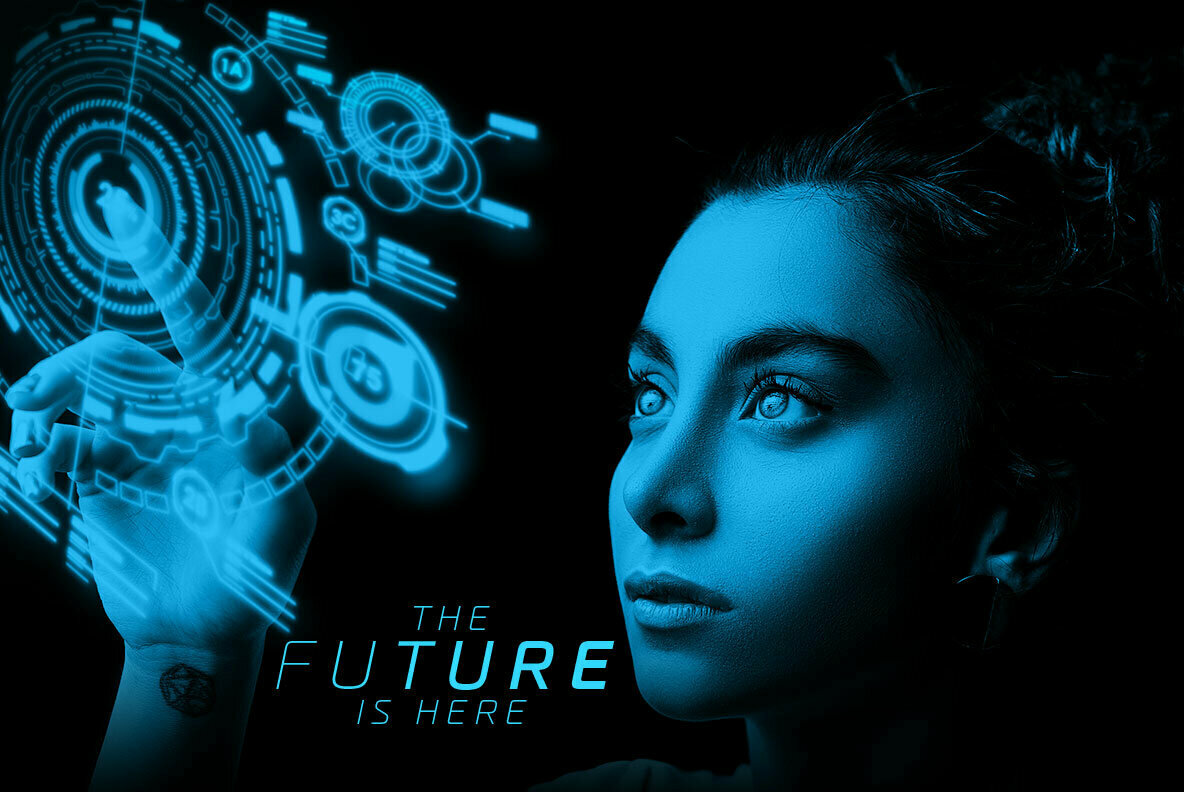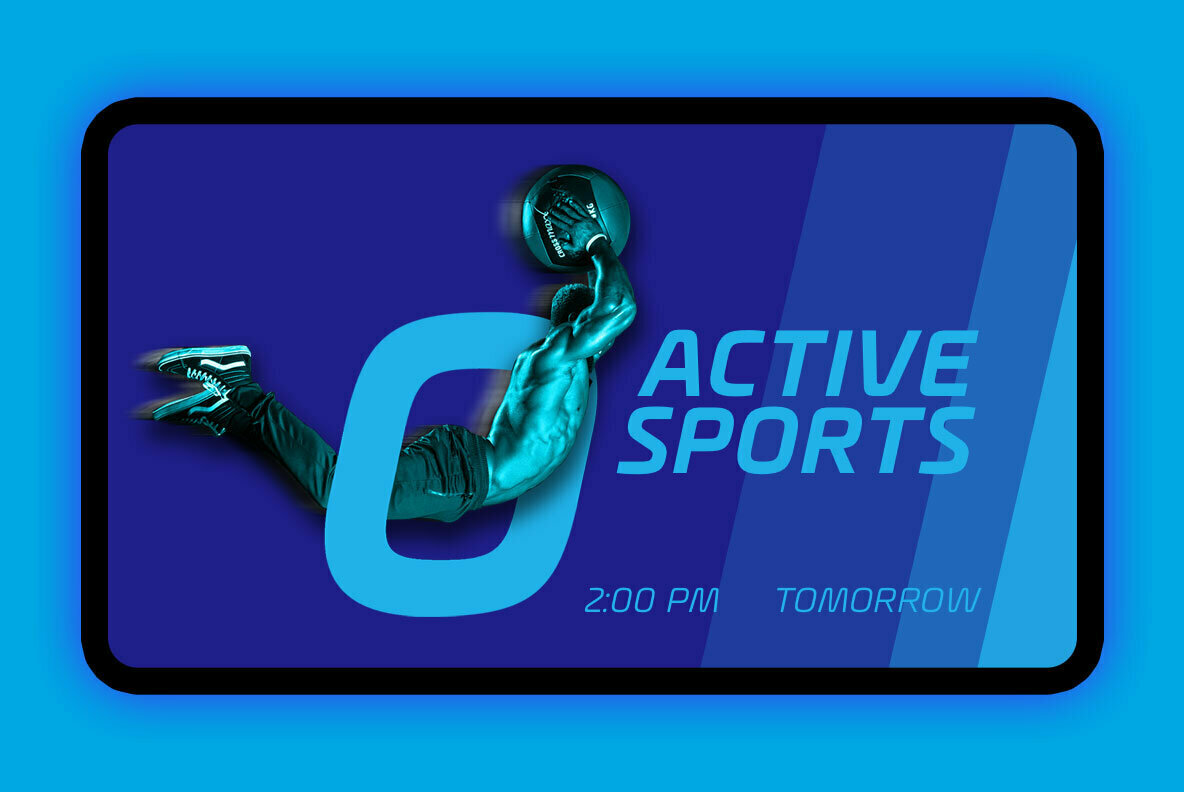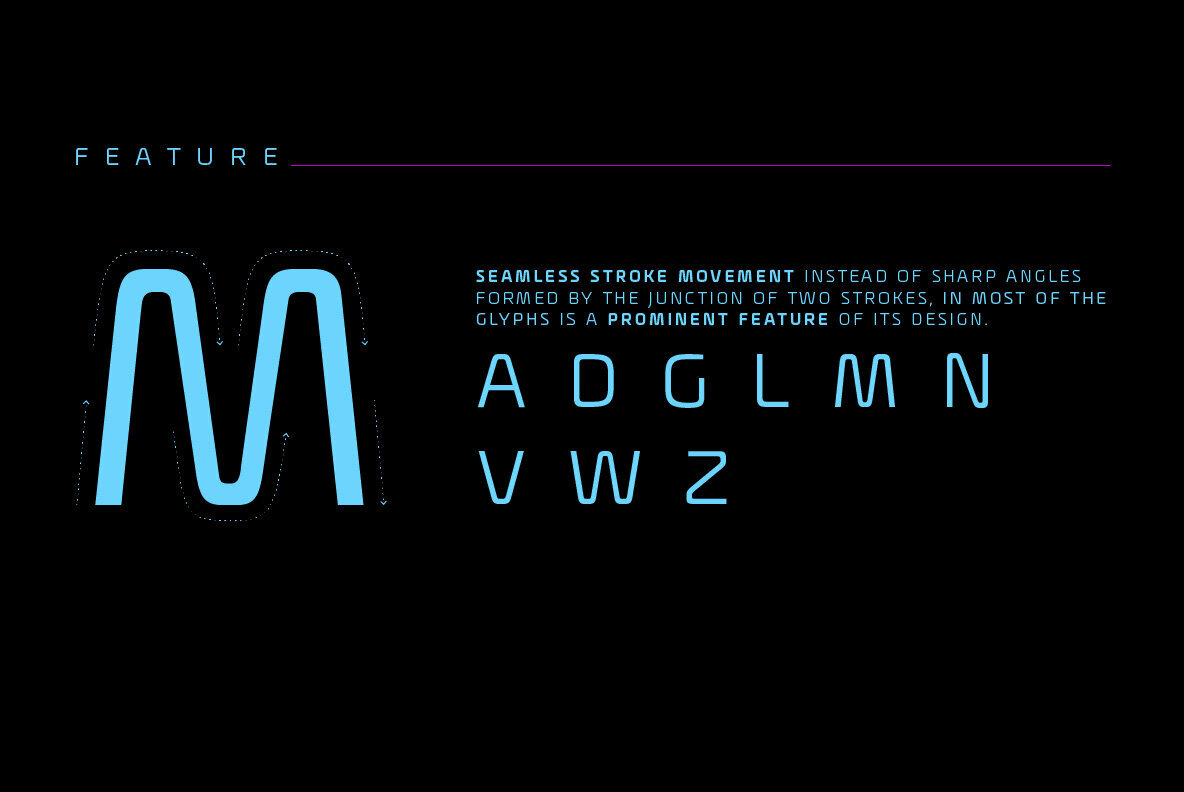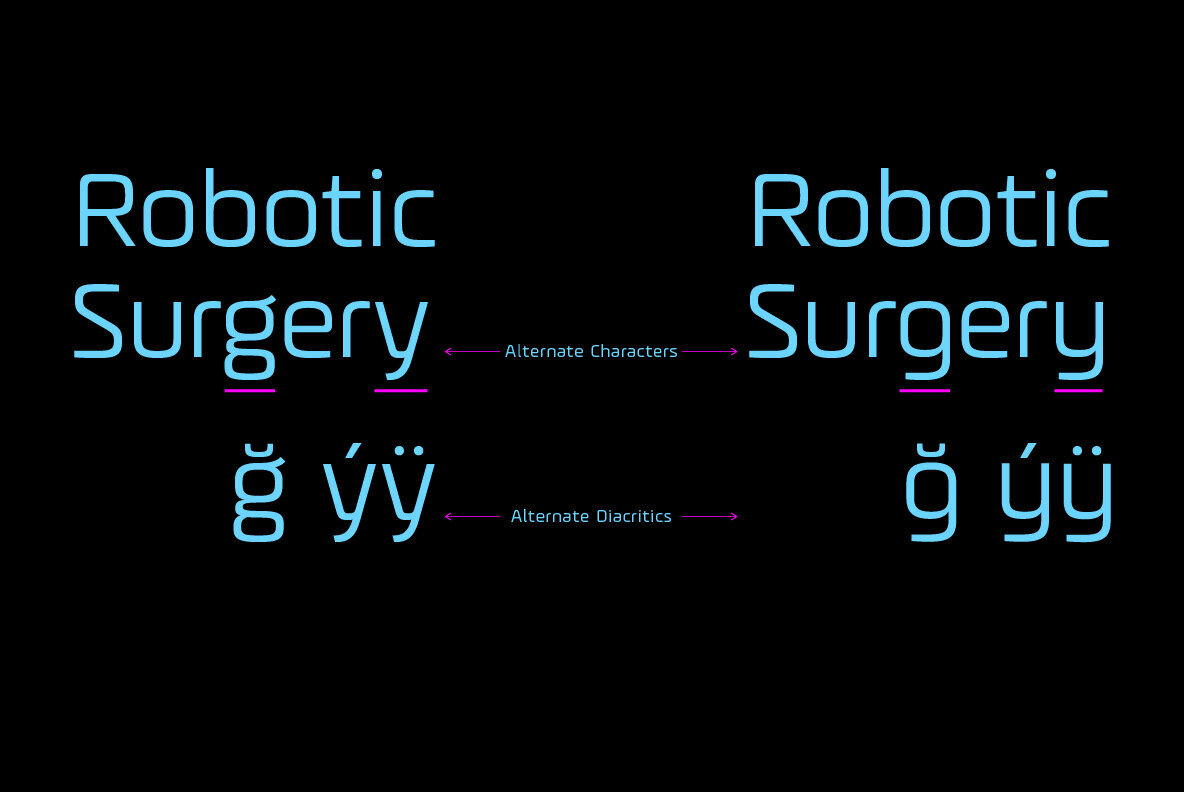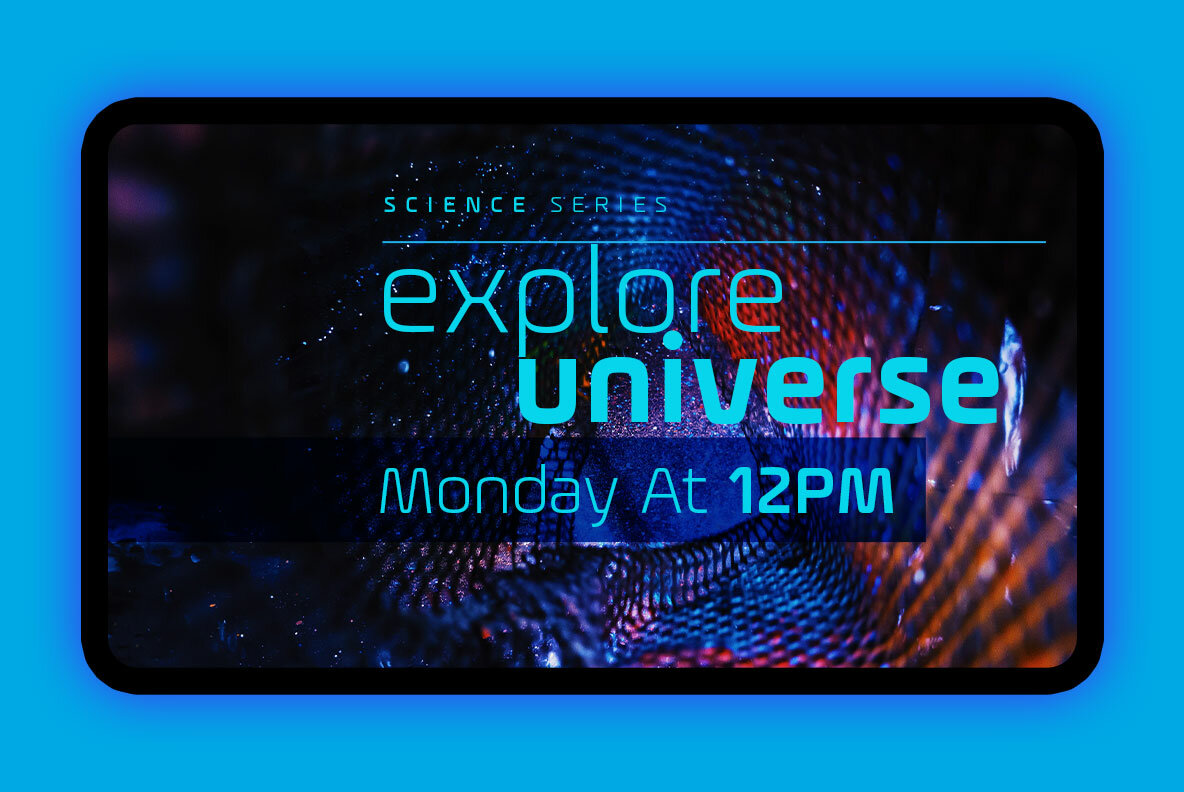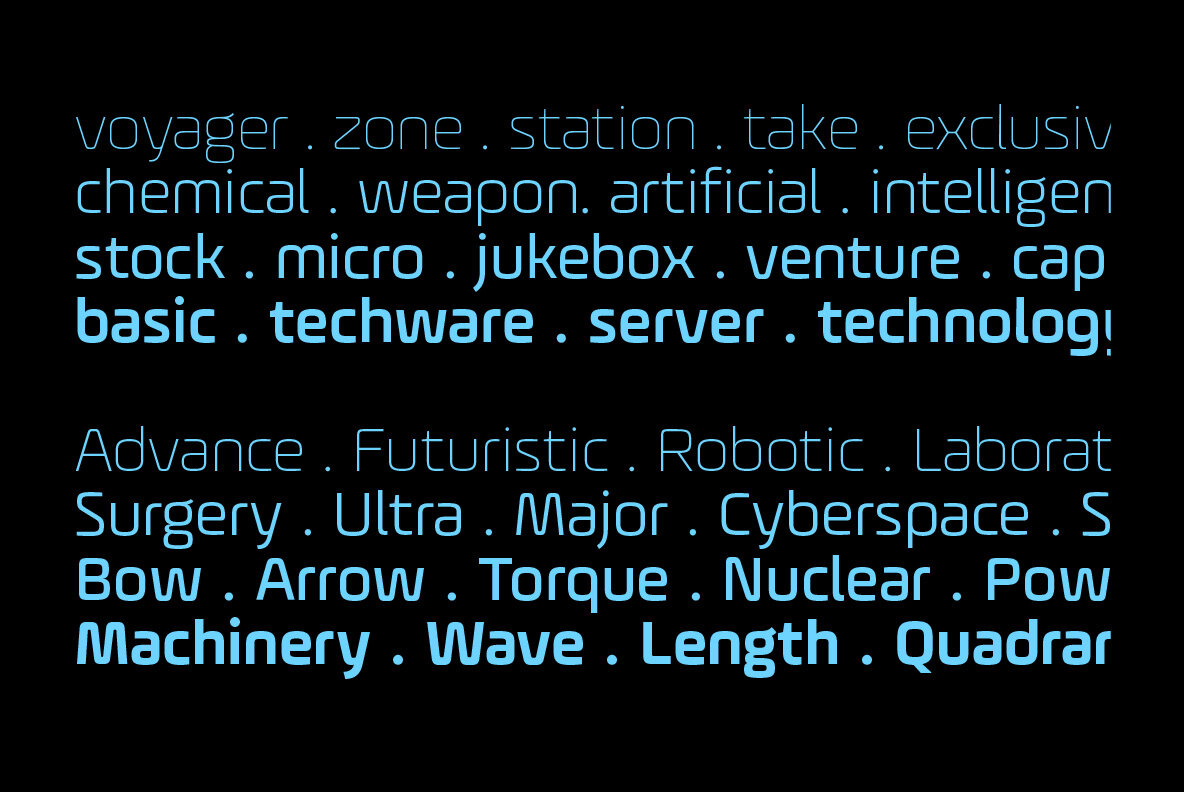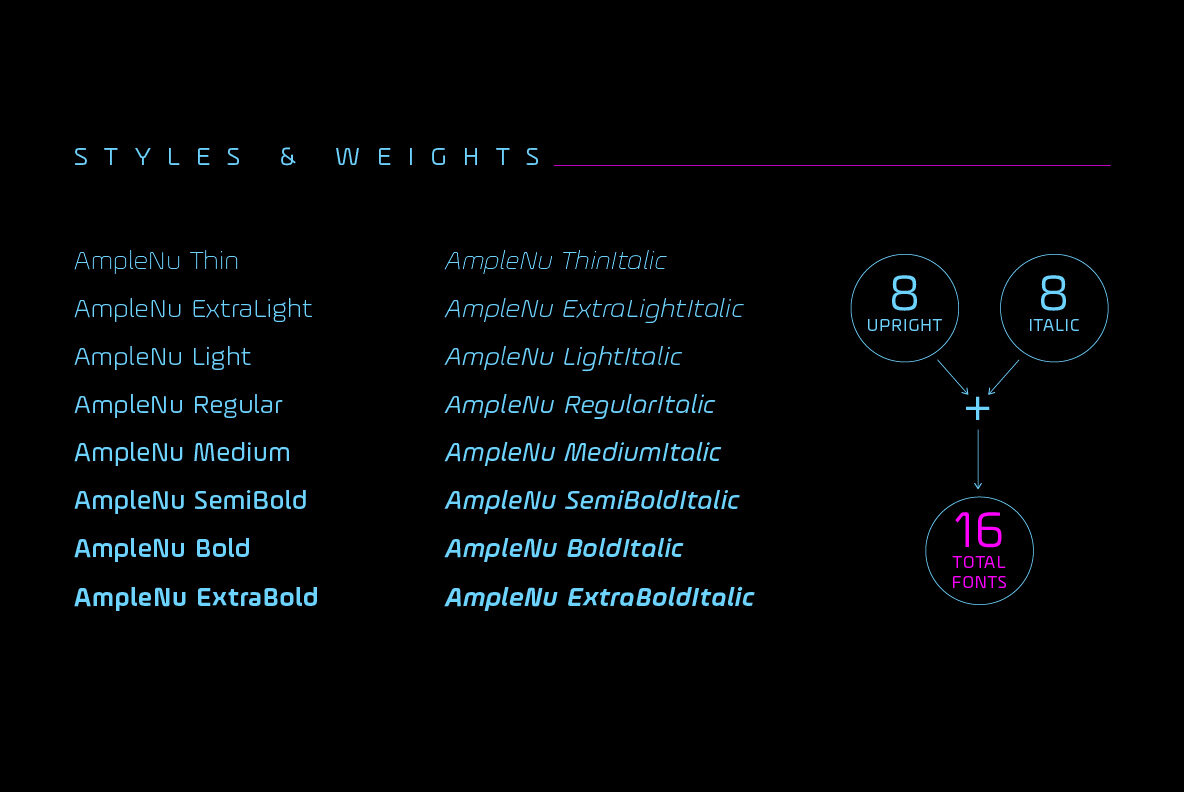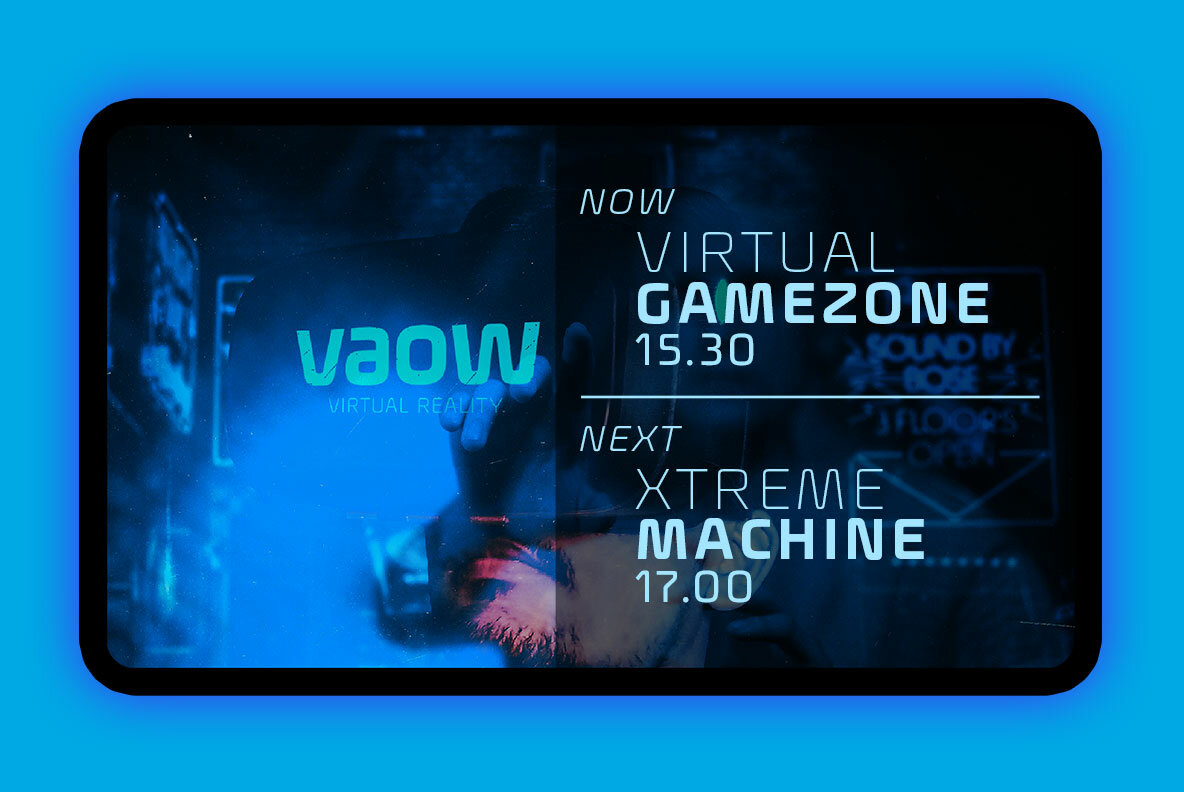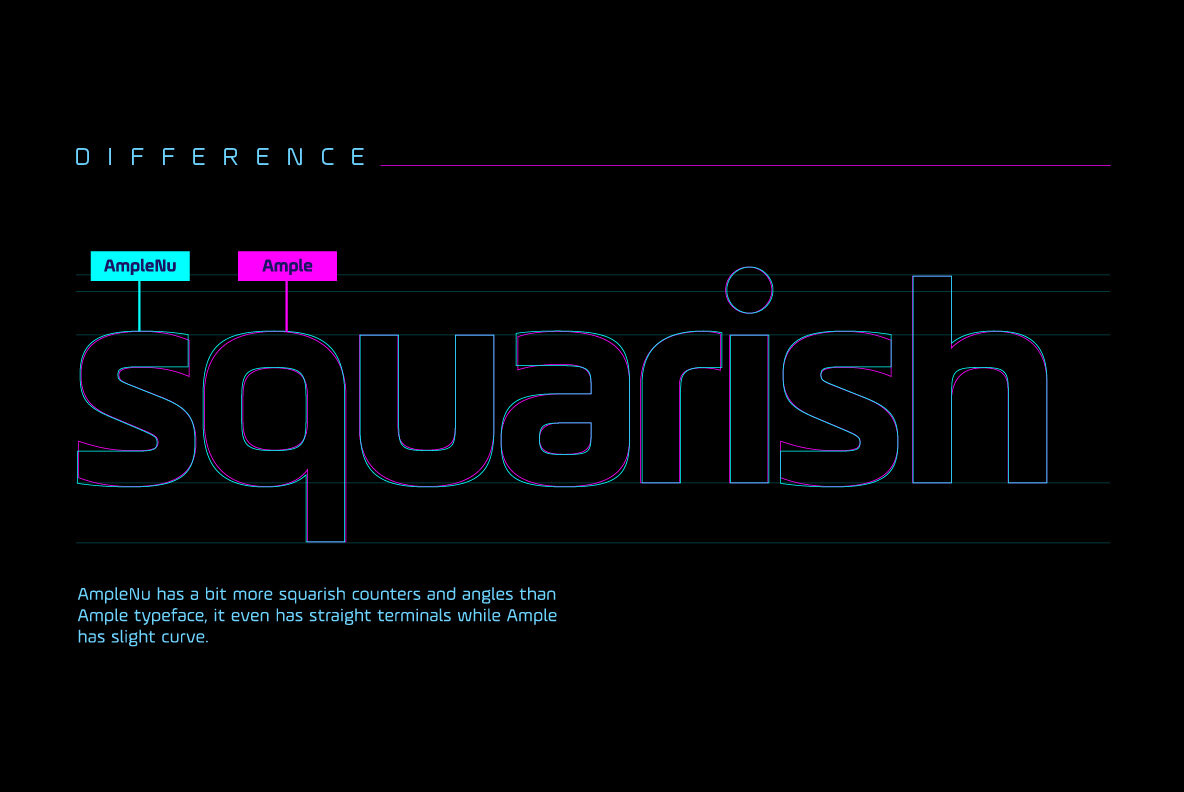
AmpleNu Font
AmpleNu is a display type family derived from the Ample typeface.
It has optical mono-linear stroke and a bit squarish form in nature. It has a seamless stroke movement instead of sharp angles formed by the junction of two strokes, which is a prominent feature of its design.
It is designed to be a little eye-catching yet legible. It has clear and distinguishable letterforms, which helps to elaborate and emphasize the message. It is graphically strong and commands the viewer's attention. The overall appearance of type is suitable for setting and using it as heading, title, headline, logotype, etc.
The type family consists of sixteen styles which include eight upright weights and their italics.
AmpleNu has a bit more squarish counters and angles than Ample typeface, it even has straight terminals while Ample has a slight curve. In addition to this, few characters have some major or minor changes and the letter ‘g’ plus ‘y’ and their respective diacritics have alternate style variations.
AmpleNu is designed by Aakash Soneri during the period between 2018-2020.